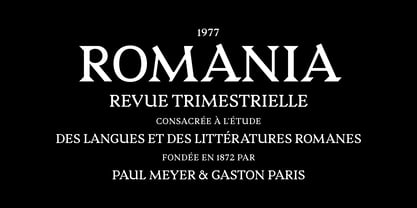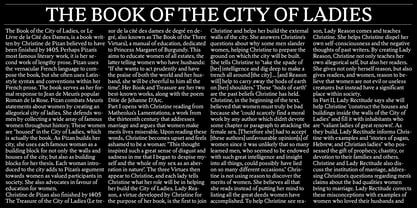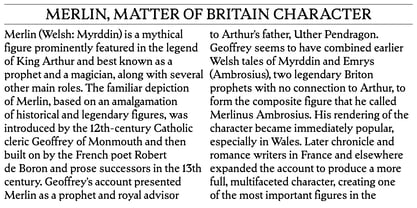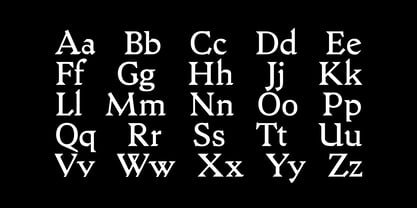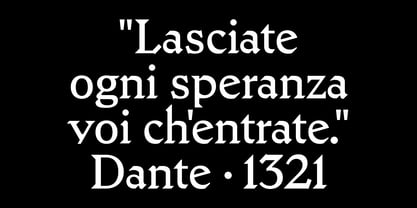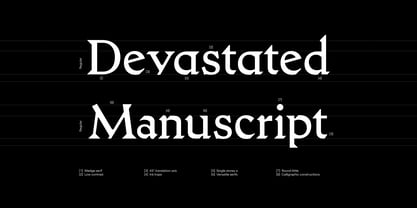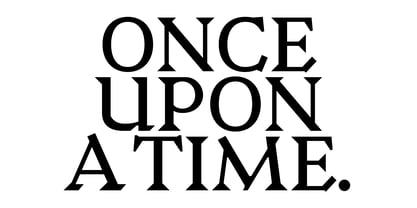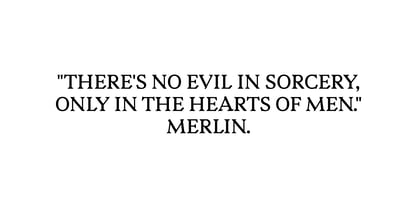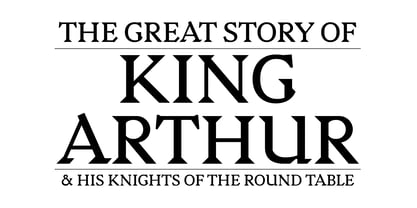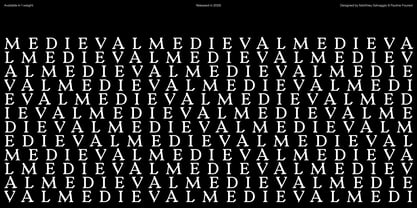
Medieval
by Blaze Type
The Medieval Font Family was designed by Matthieu Salvaggio and published by Blaze Type. Medieval contains 1 styles. More about this family
Medieval is a free interpretation of Fritz Helmuth Ehmcke's Mediaeval (Stempel, 1922). The challenge was to remain faithful to the original and its distinctive character — versatile serifs, strikingly tall ascenders, and a pronounced translation contrast — while distilling these qualities into something cleaner and more controlled. The solution lies in 45° serif segments and carefully placed ink traps, lending the design a quiet geometric precision without sacrificing its historical soul.
Certain characters have been deliberately softened: the o embraces expansion contrast, the g settles into a more classical posture, and overall contrast is kept intentionally restrained for sustained readability. The result is a transitional typeface with a deep historical sensibility — structurally disciplined, yet warm enough to carry text at body sizes.
Its tall ascenders and architectural rhythm make it a natural fit for display work: logotypes, editorial headlines, poster typography, book covers, cultural institution identity, and drop caps. At smaller sizes Medieval remains serviceable, though it truly comes alive when given room to breathe.